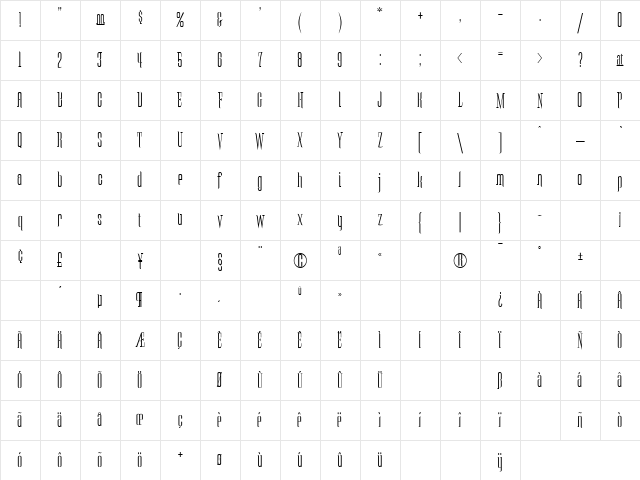
Malaise Regular Free Font
Malaise Regular
Design Context for Malaise
Malaise is a composed and adaptable typeface that performs quietly and consistently across a wide range of design contexts.